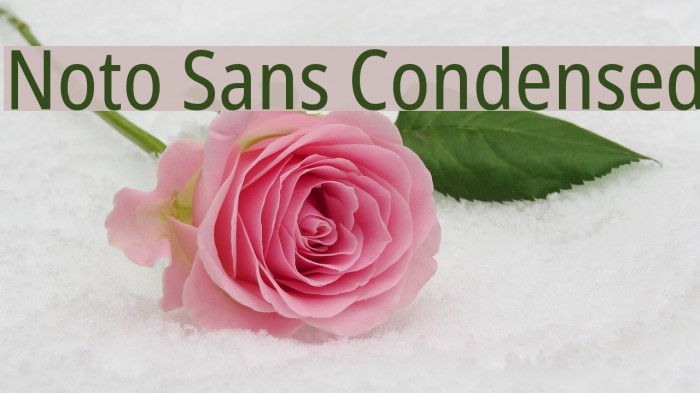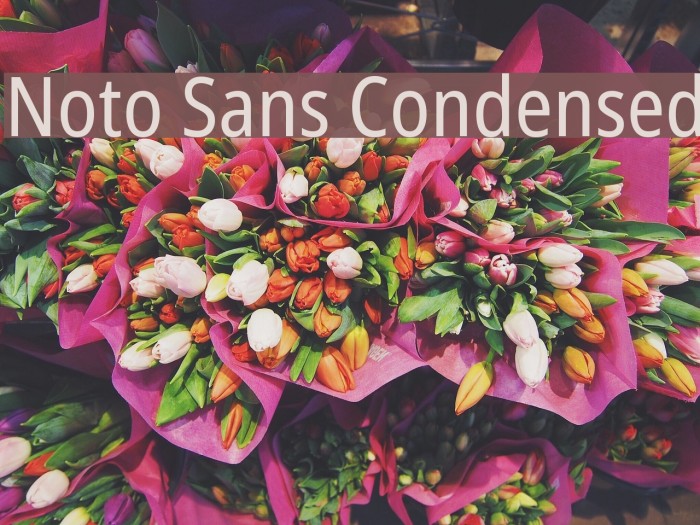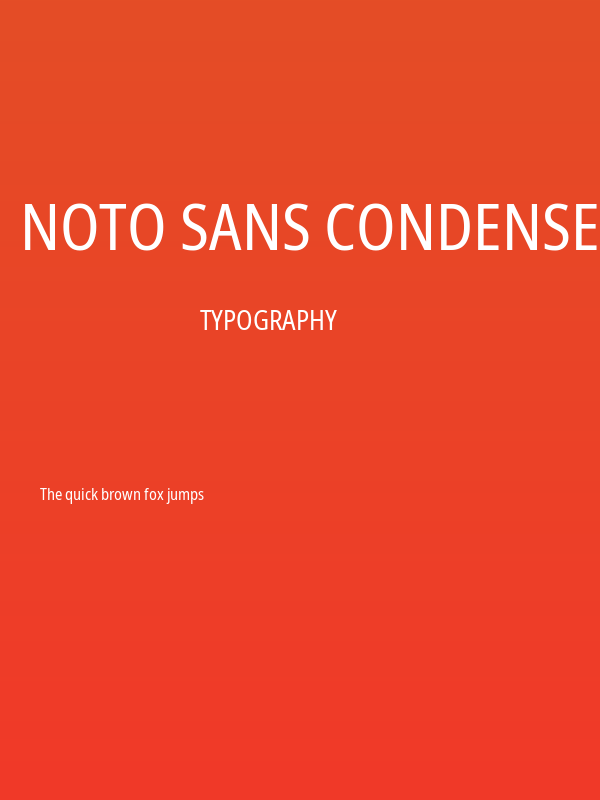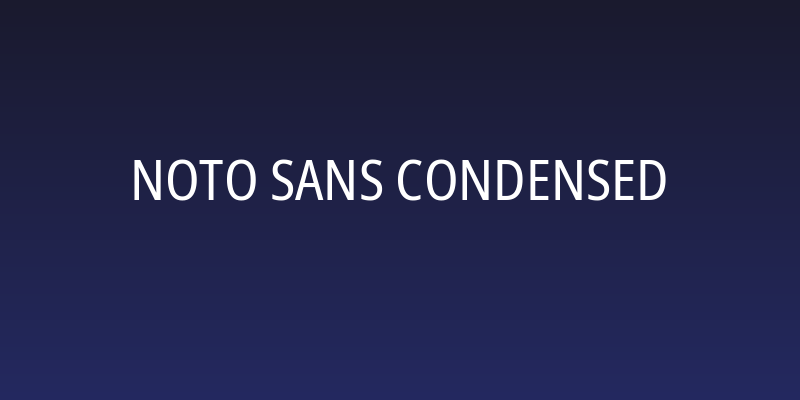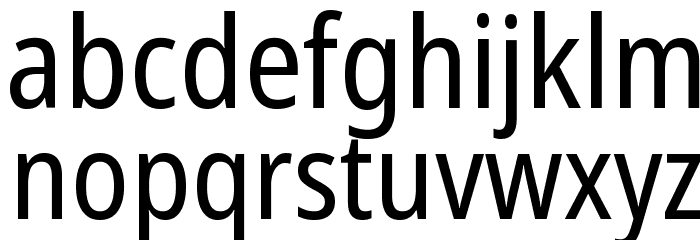
Noto Sans Condensed Font
Noto Sans Condensed Description
This font features a clean and modern sans-serif design with a condensed width, making it ideal for space-saving applications. The characters are well-proportioned with a uniform stroke width, providing a balanced and harmonious appearance. The uppercase and lowercase letters maintain a consistent style, ensuring readability and clarity. The numerals are straightforward and align well with the overall aesthetic, while the special characters are distinct and easily recognizable. This font's simplicity and versatility make it suitable for a wide range of design projects.
| Proposed Projects | Ideal for web design, branding, editorial layouts, and signage where space is limited. |